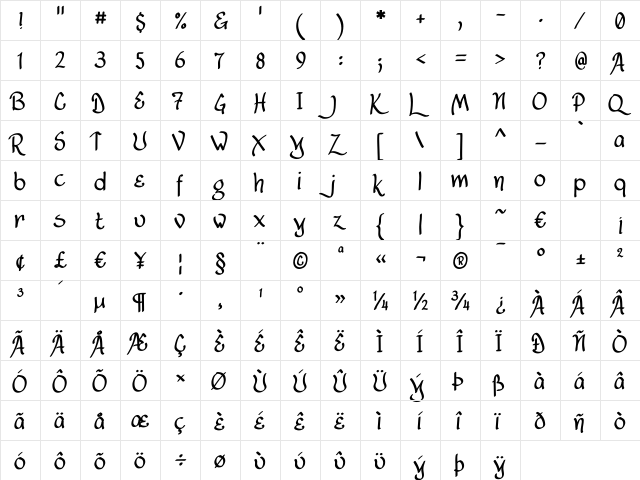
Lancastershire Regular
| Foundry | HT |
| Designer | HT |
Design Context for Lancastershire Typeface
Lancastershire takes a measured approach to typography — its balanced proportions and neutral character make it a reliable workhorse for both digital and print work.